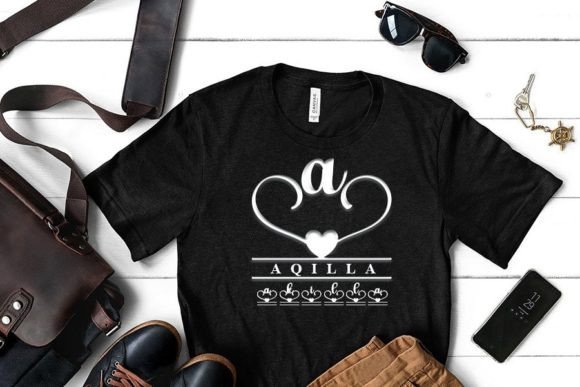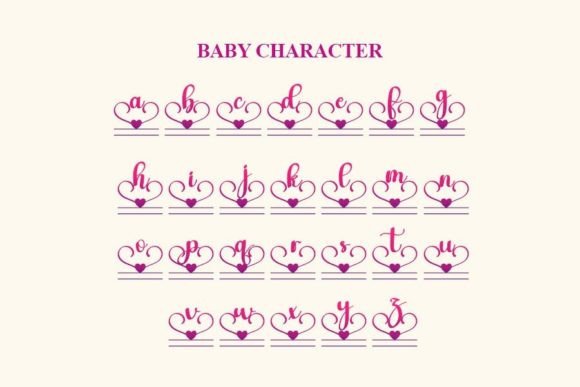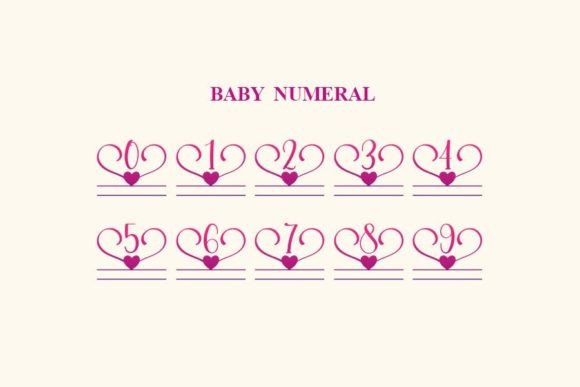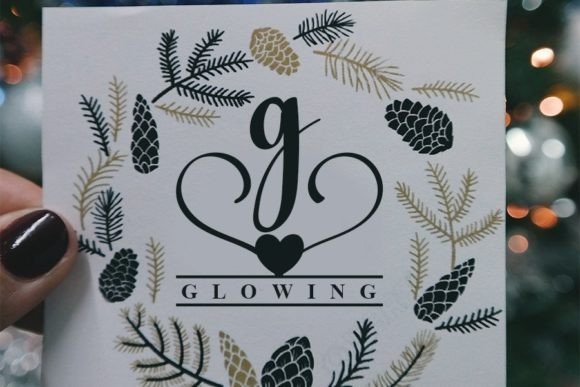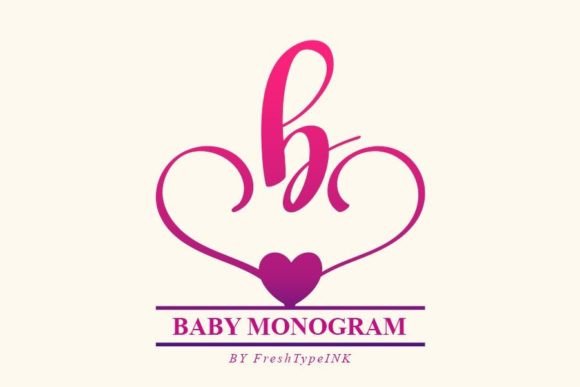
Baby Monogram Font: Elevate Your Designs with Elegance and Sophistication
In the world of design, fonts play a pivotal role in conveying the tone and aesthetic of a project. For those seeking a touch of elegance and refinement, the Baby Monogram Font stands out as an exceptional choice. This beautiful and refined monogram font is not only classy and modern but also versatile, making it perfect for a wide array of design applications. From logos and branding to invitations, stationery, wedding designs, social media posts, and beyond, Baby Monogram Font is an asset for any designer or crafter looking to elevate their work.
What Makes Baby Monogram Font Special?
Baby Monogram Font is distinguished by its sophisticated and sleek appearance. Its classy and modern design ensures that it can be seamlessly integrated into various projects, offering a timeless appeal that won’t go out of style. Whether you’re working on a logo, a wedding invitation, or a social media graphic, this font adds a level of refinement that can significantly enhance the overall look of your design.
One of the key advantages of Baby Monogram Font is its versatility. It’s not limited to a specific type of project but can be used across a broad spectrum of design applications. Here are some of the areas where Baby Monogram Font truly shines:
- Logos and Branding: Create a lasting impression with a logo that exudes elegance and professionalism.
- Invitations and Stationery: Add a touch of sophistication to your invitations, greeting cards, and stationery.
- Wedding Designs: Make your wedding designs, including save-the-date cards, wedding invitations, and more, truly unforgettable.
- Social Media Posts: Elevate your social media graphics, making them stand out in a crowded digital landscape.
Baby Monogram Font comes with PUA (Private Use Area) encoding, a feature that makes it incredibly user-friendly. PUA encoding allows designers to access all the amazing glyphs and ligatures easily, without the need for complicated workarounds. This means you can focus on the creative aspect of your project, rather than struggling with technicalities. The inclusion of numerous glyphs and ligatures also adds to the font’s versatility, enabling you to experiment with different styles and effects.
Why Choose Baby Monogram Font?
With so many fonts available, why should Baby Monogram Font be your go-to choice? Here are a few compelling reasons:
- Elegance: It brings a level of sophistication to your designs that’s hard to match.
- Versatility: Its wide range of applications makes it a valuable addition to your font collection.
- User-Friendly: PUA encoding ensures that you can easily access and use the font’s features.
- Modern Appeal: Its contemporary design ensures that your projects will look modern and relevant.
Tips for Using Baby Monogram Font
To get the most out of Baby Monogram Font, consider the following tips:
- Experiment with Sizes: Play around with different font sizes to see how it impacts the overall look of your design.
- Combine with Other Fonts: Try pairing Baby Monogram Font with complementary fonts to create visual interest.
- Utilize Glyphs and Ligatures: Take advantage of the font’s PUA encoding to explore different glyphs and ligatures, adding depth to your design.
Baby Monogram Font is a stunning addition to any designer’s toolkit. Its elegant and modern design, coupled with its versatility and user-friendly features, makes it an invaluable resource for a wide range of projects. Whether you’re a professional designer or a crafter, this font has the potential to elevate your work, adding a touch of class and sophistication that’s sure to impress. With Baby Monogram Font, the possibilities are endless, and the impact on your designs is sure to be profound.